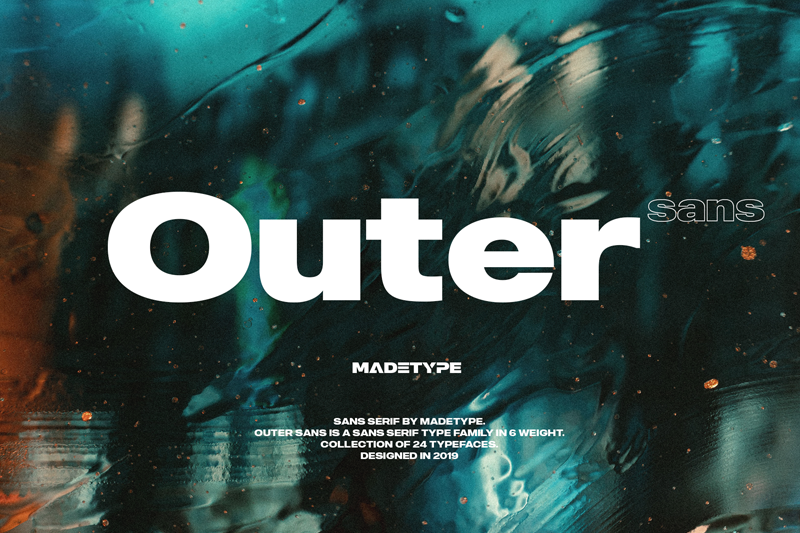
Preview and download MADE Outer Sans Font. Created by MADE Type in Basic Sans serif styles with Free for personal use license.
Font name: | MADE Outer Sans |
Author: | MADE Type |
MADE Outer Sans is a modern type family of 24 typefaces. The Outer Sans type family will perfect for many project: fashion, invitations, music cover, game poster, cinema, book, magazines, logo, branding, photography, wedding invitations, quotes, blog header, poster, advertisements, t-shirt, etc. Font is FREE for PERSONAL USE. Contact me mail for commercial use and questions: madetypeinfo@gmail.com ----- FOR PERSONAL AND COMMERCIAL WORK https://www.fontspring.com/fonts/madetype https://creativemarket.com/MadeType https://www.youworkforthem.com/designer/1002/madetype/ https://crella.net/store/madetype/ ----- https://www.behance.net/madetype Email for questions: madetypeinfo@gmail.com |